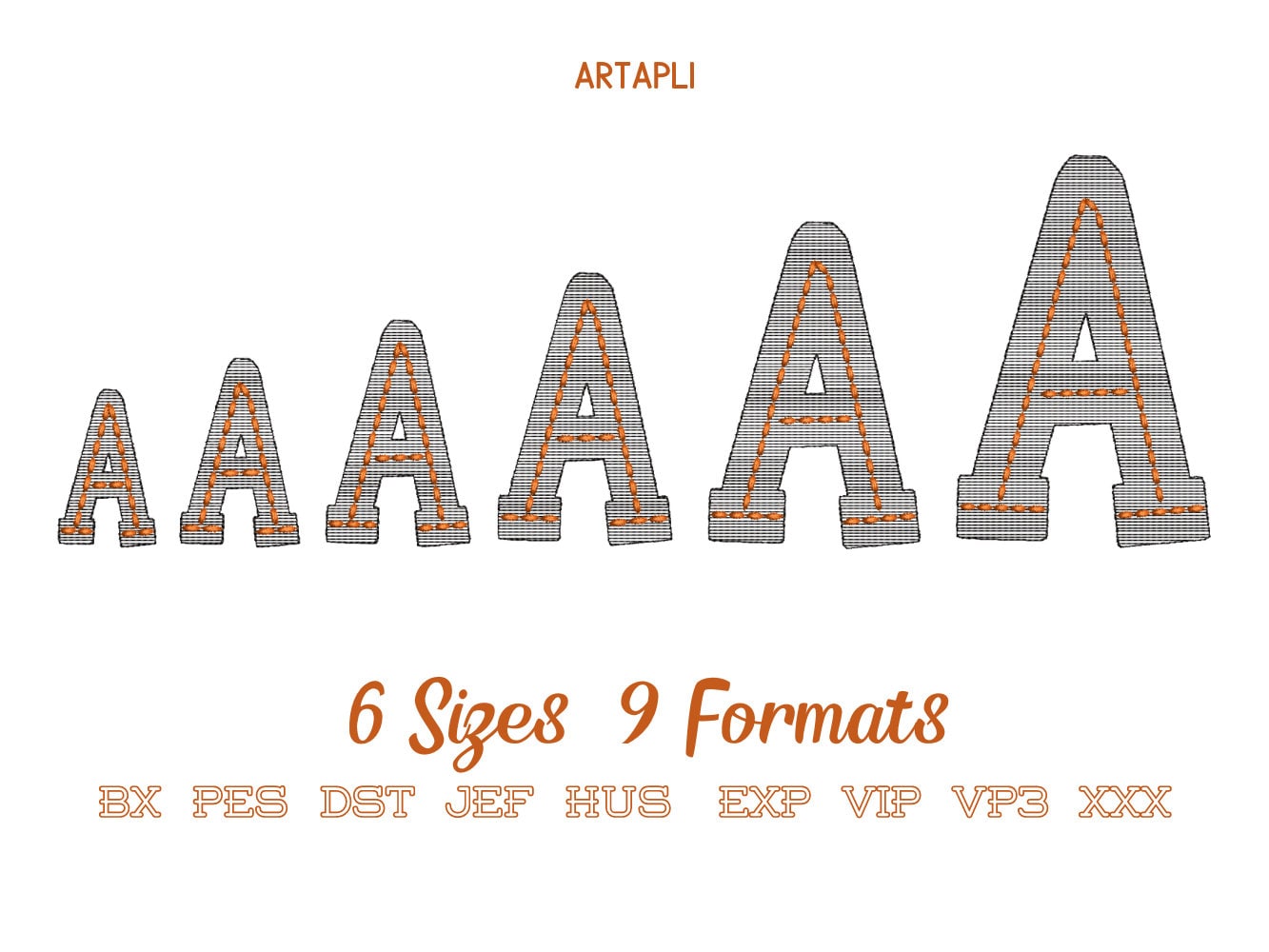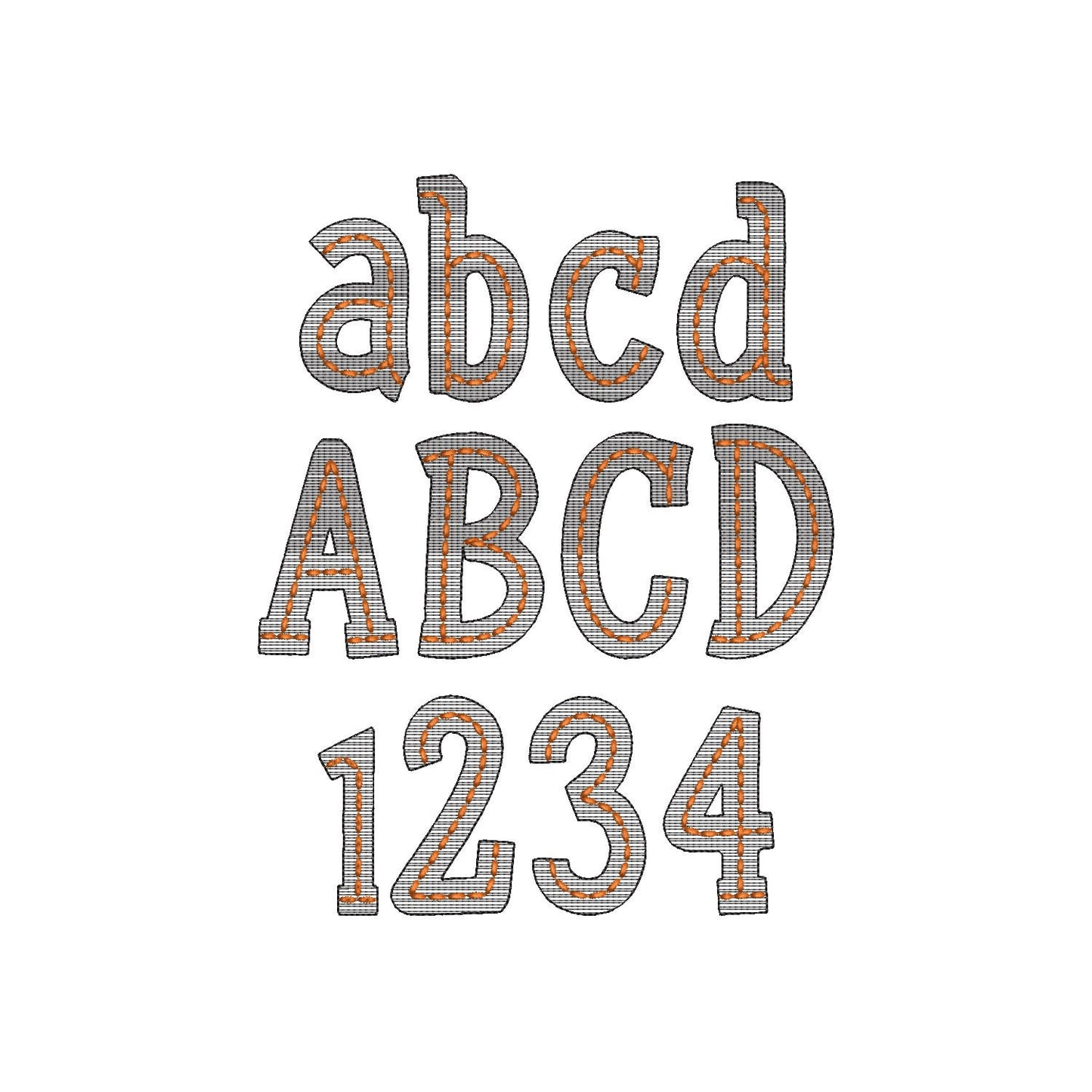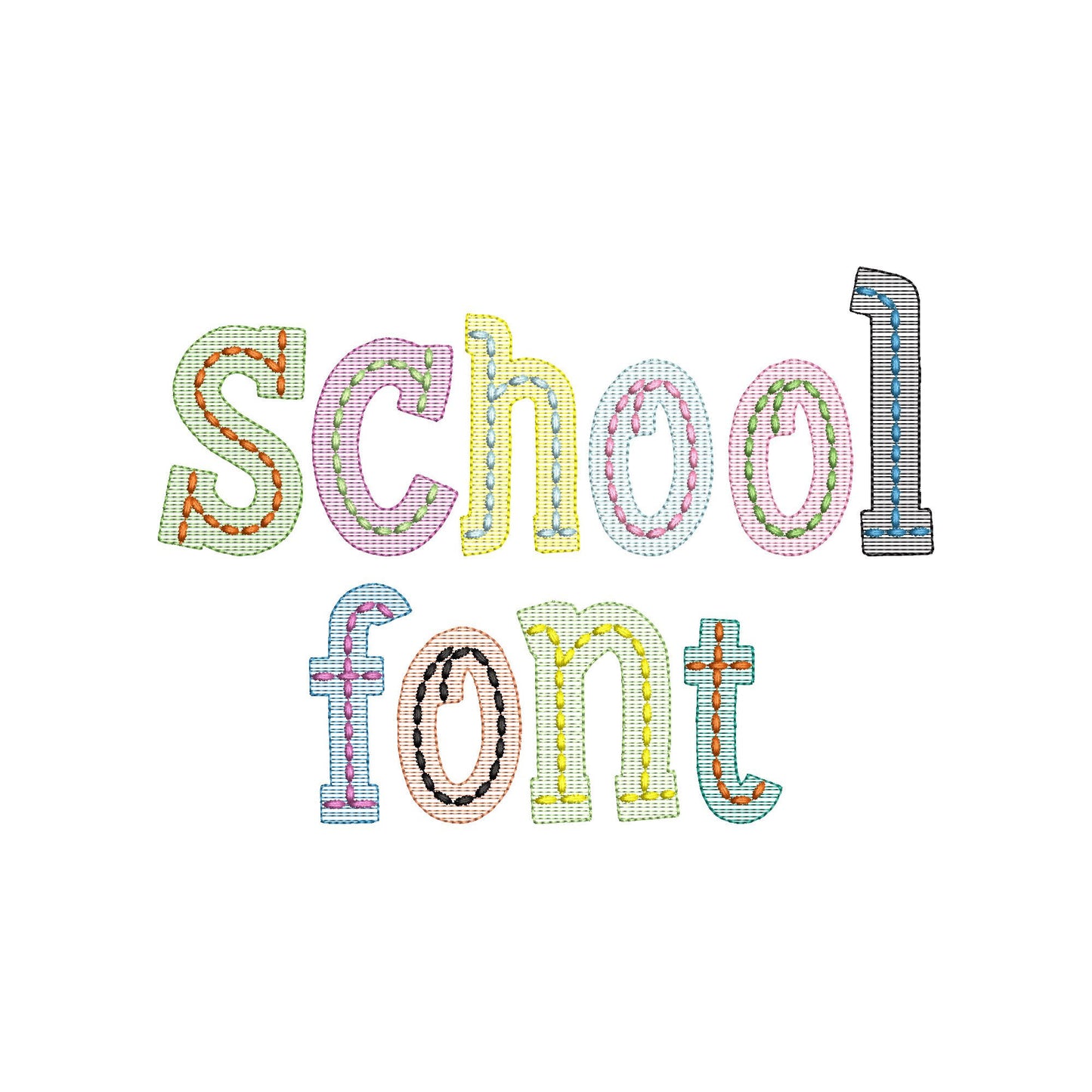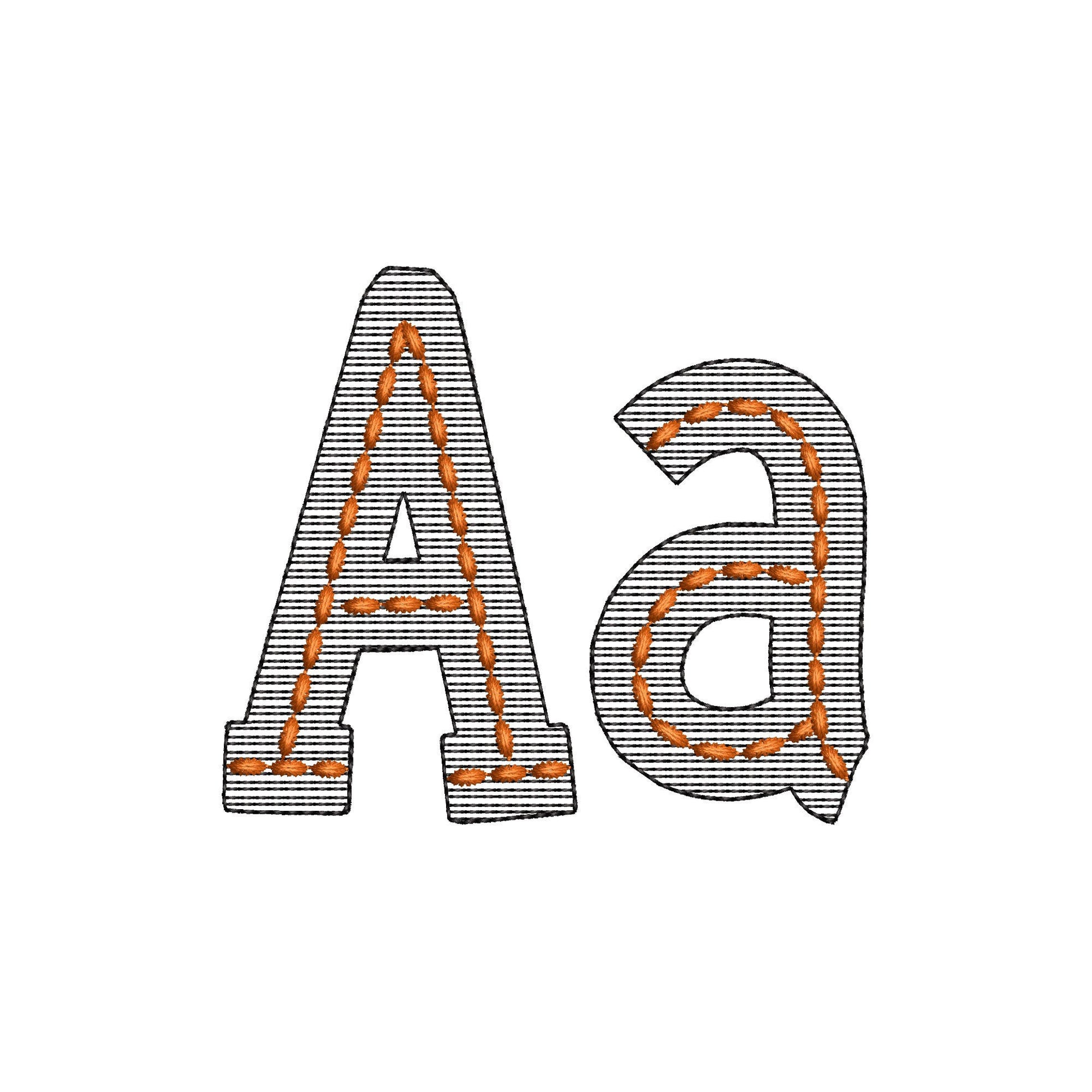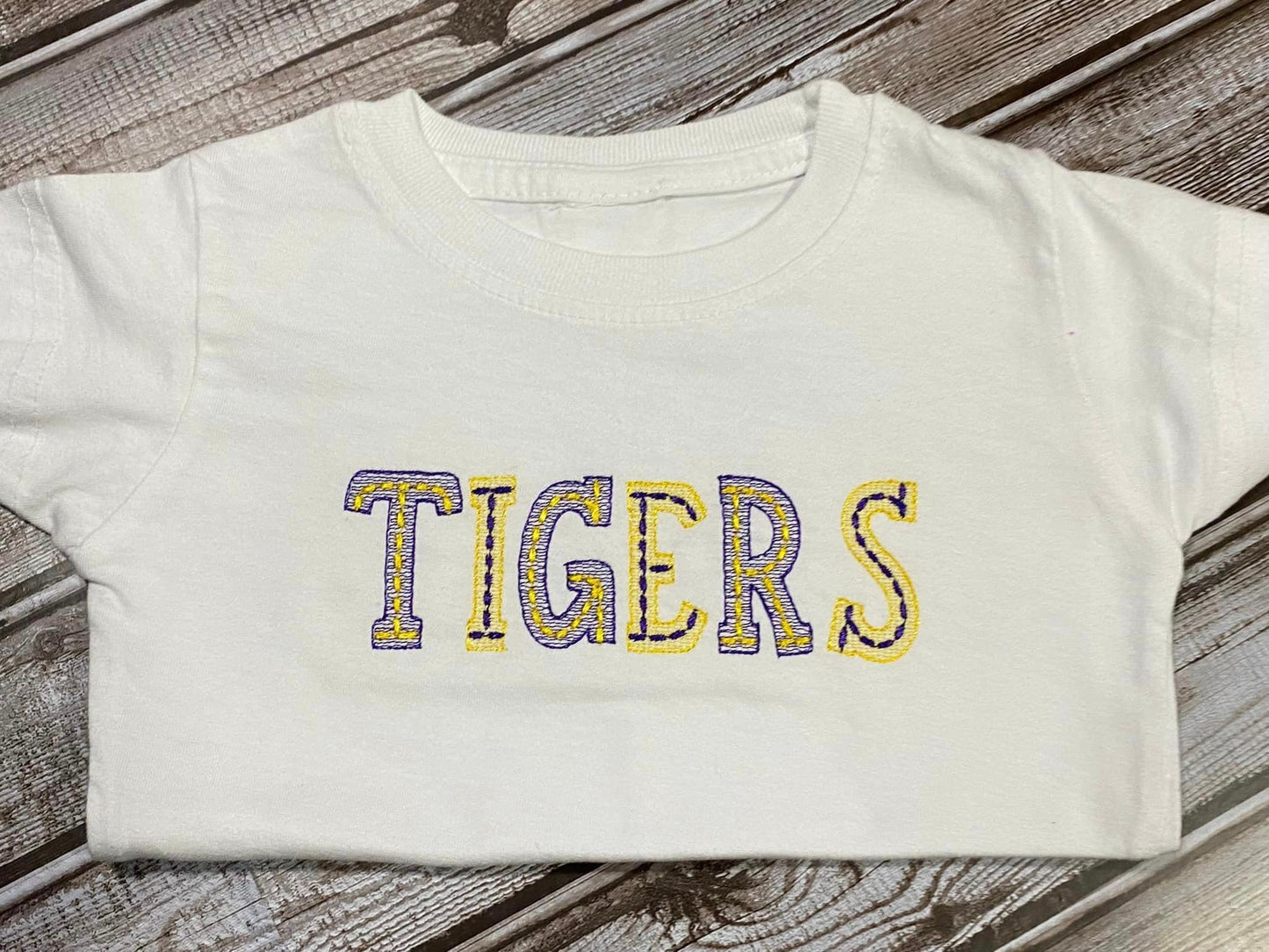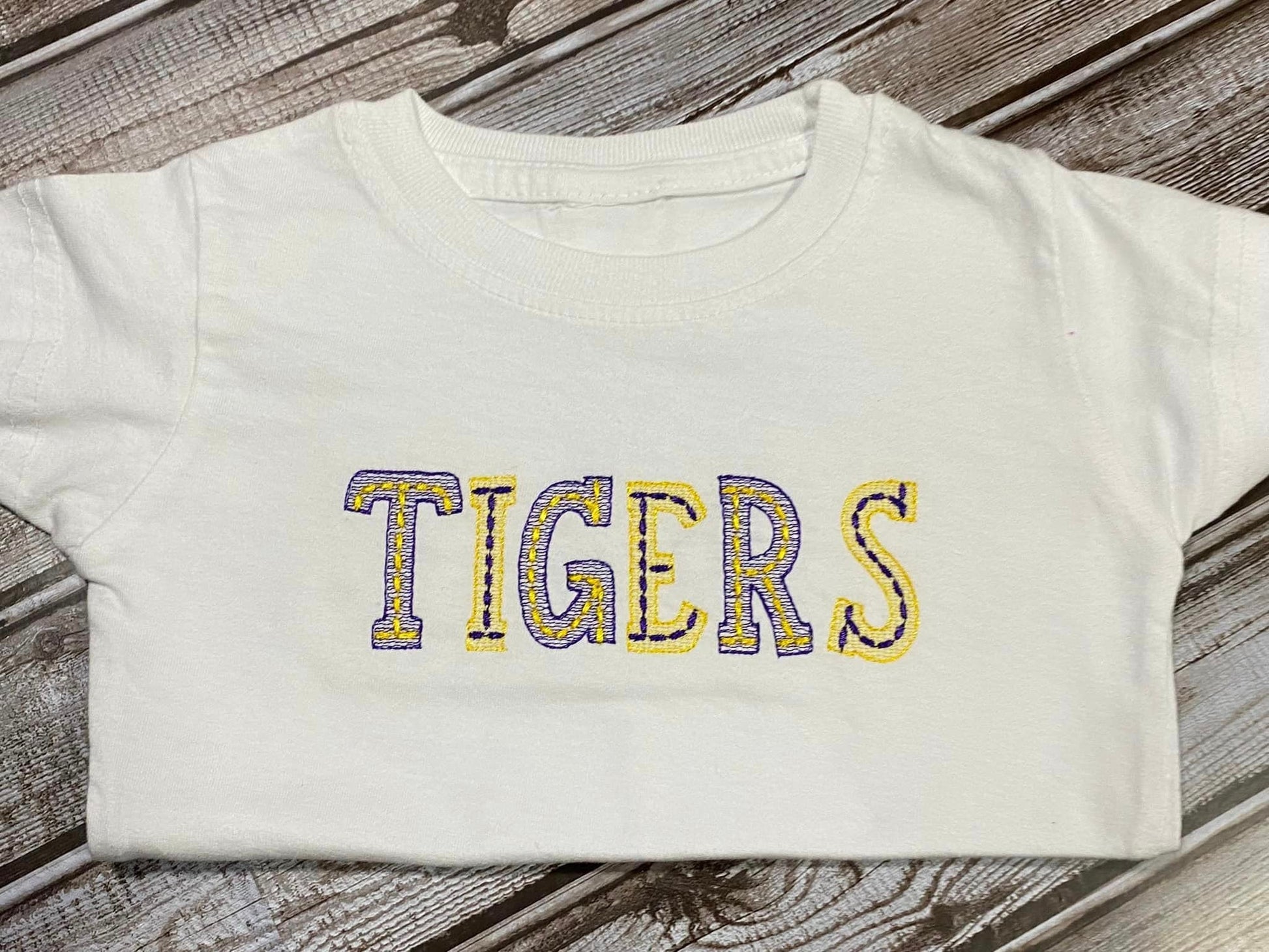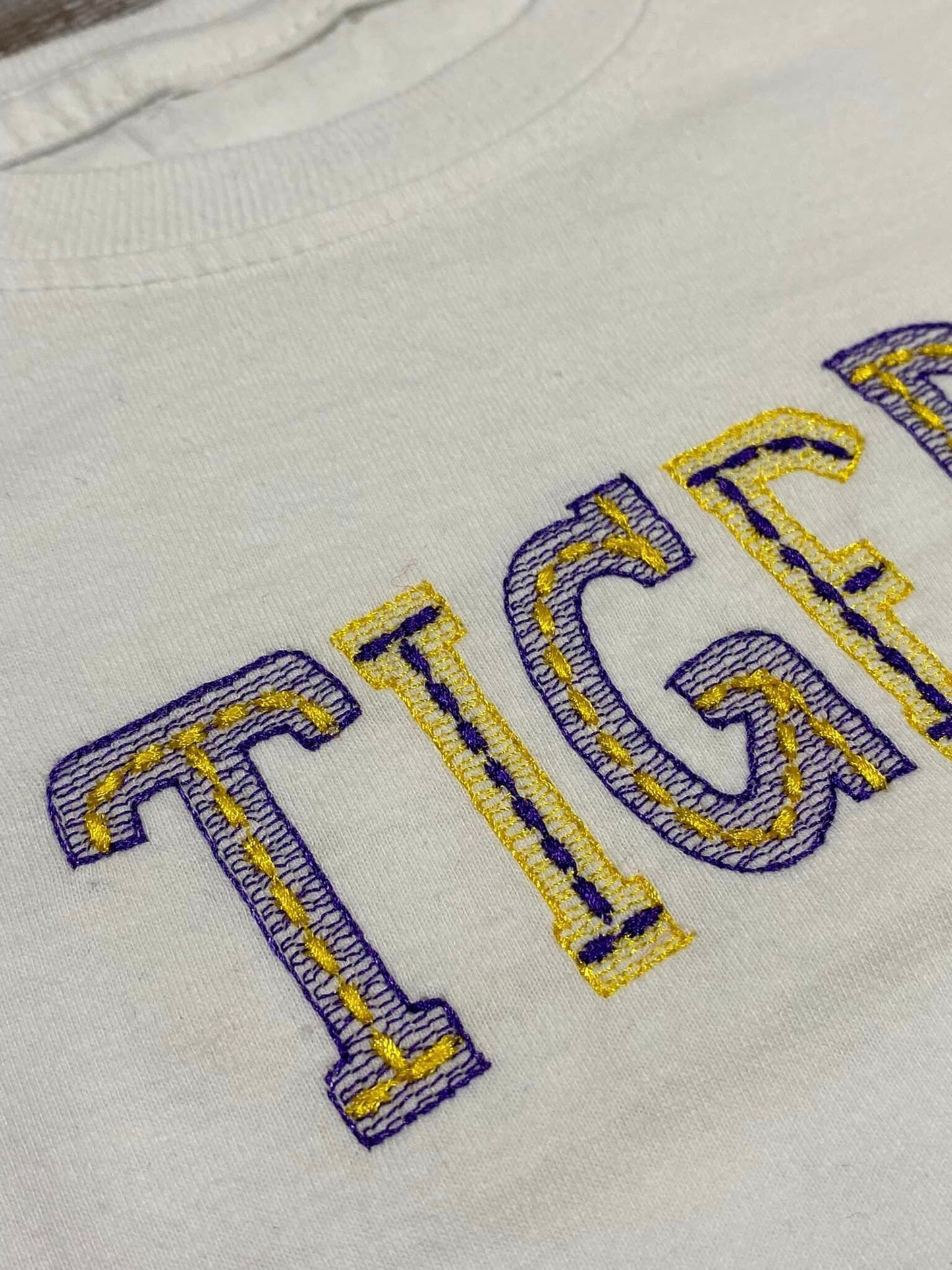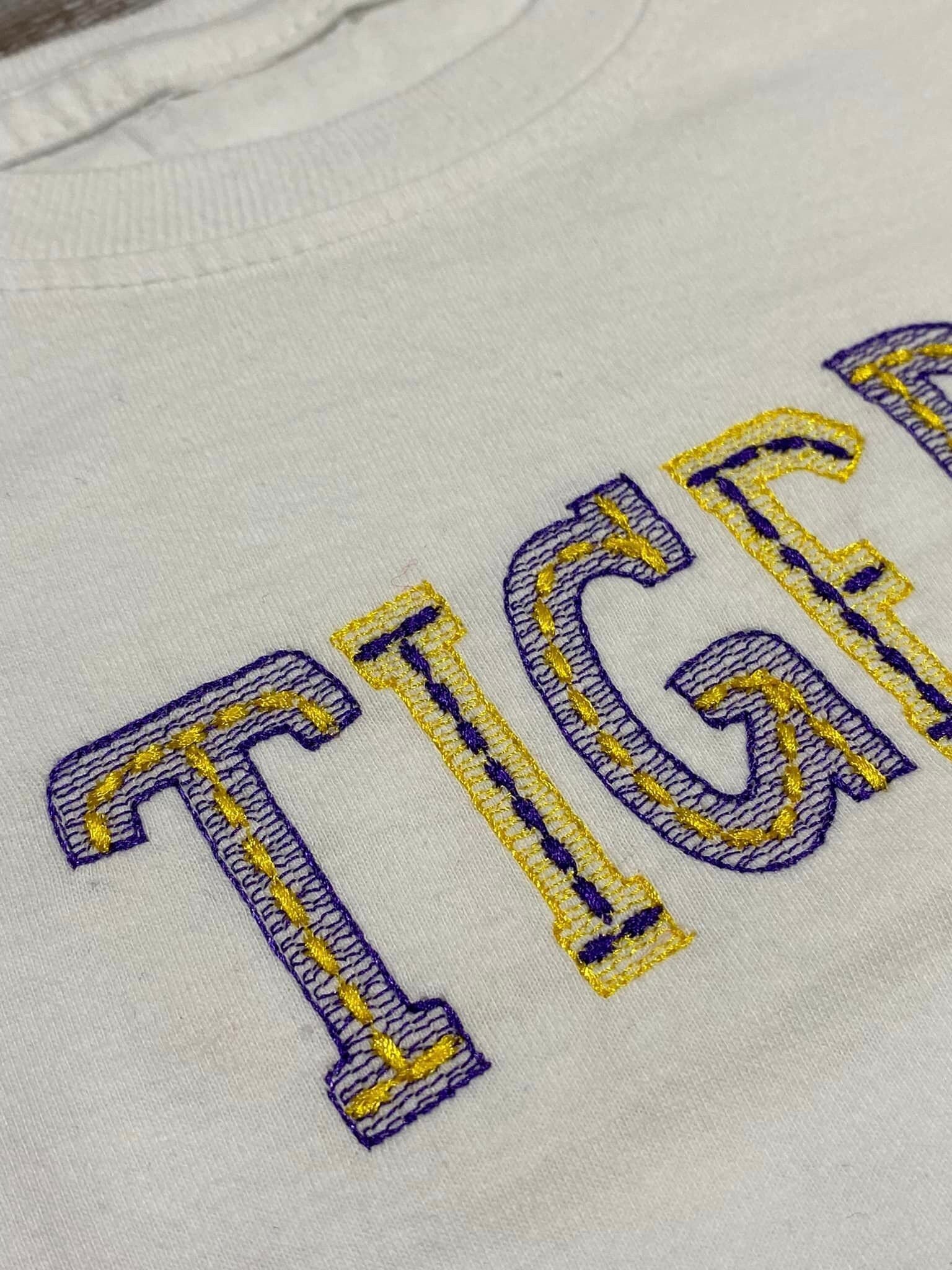
Quick Light Stitch School Font
Uppercase and lowercase letters, numbers 0 to 9, an ampersand and a period, in six sizes: 2, 2.5, 3, 3.5, 4 and 5 inches. Light fill and a bean stitch outline let the fabric show through.
- Light stitch school chalk font
- Uppercase and lowercase letters, numbers 0-9
- 6 sizes, 2 to 5 in